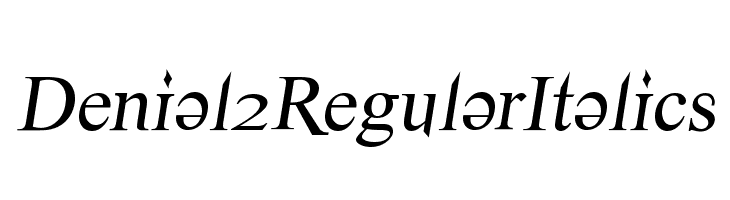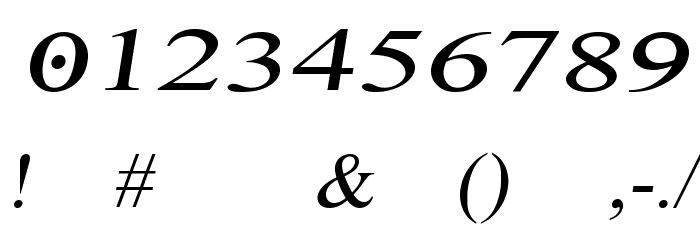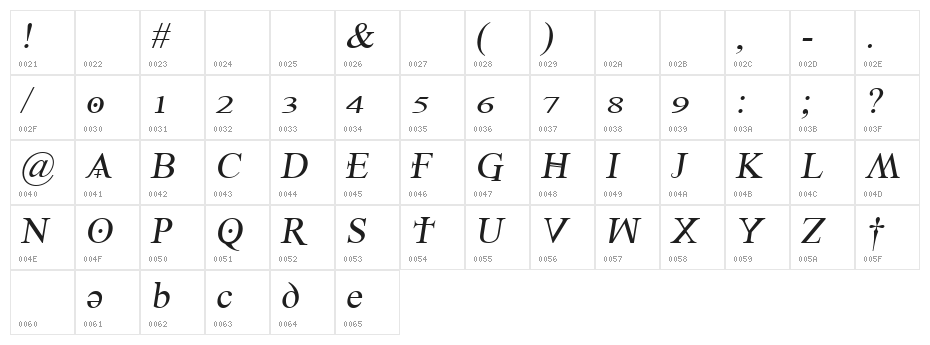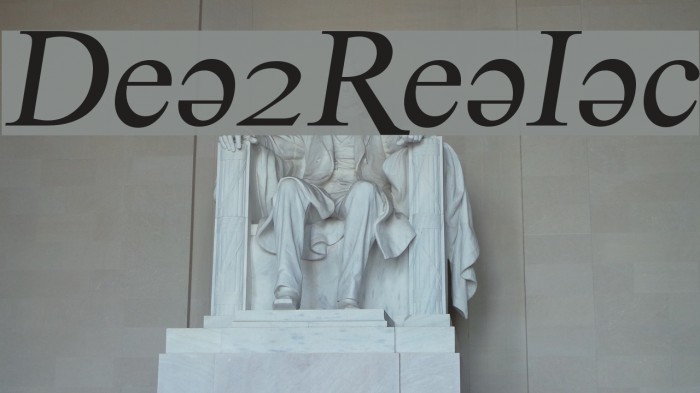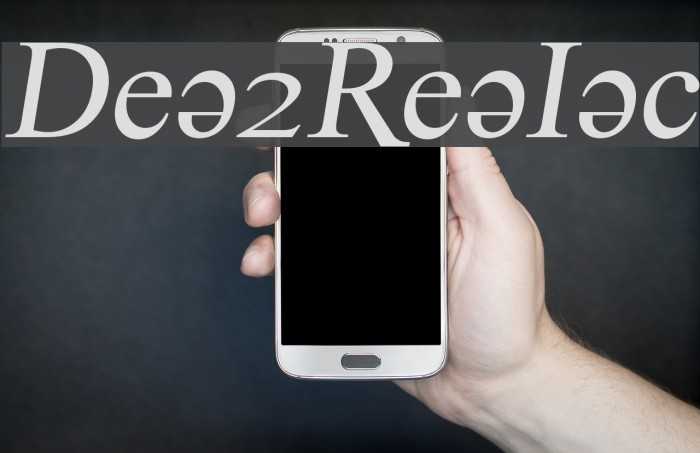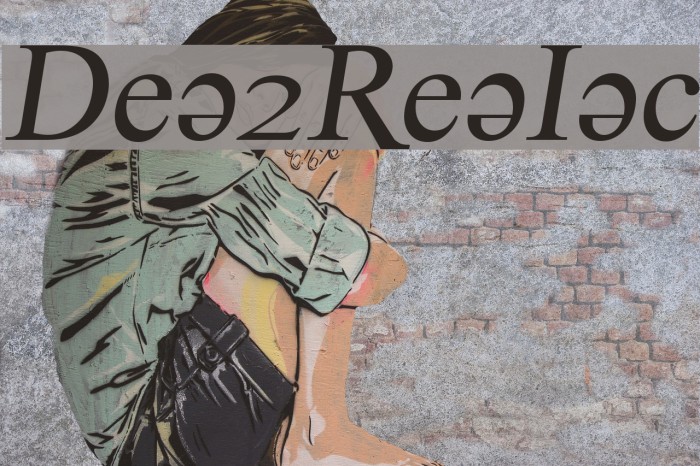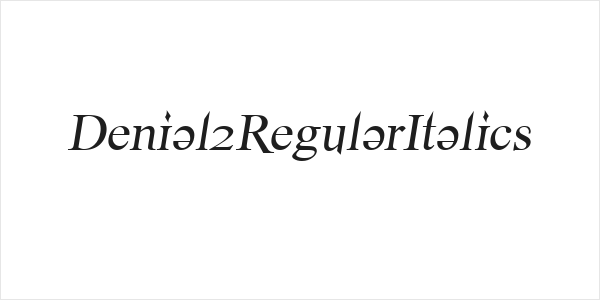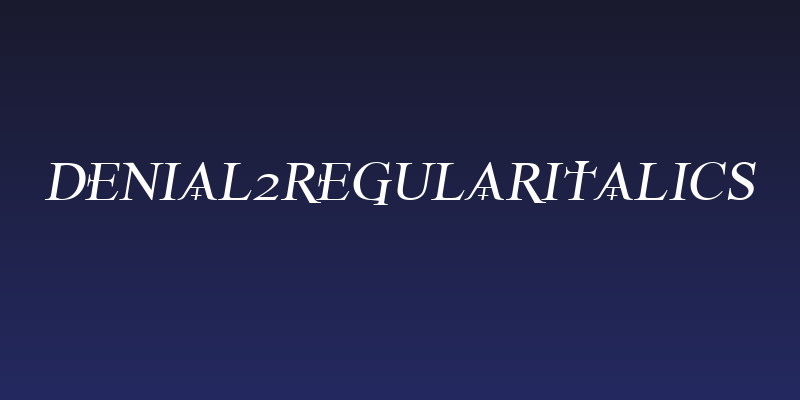
This font exhibits a classic serif style with a distinct italic slant, giving it an elegant and sophisticated appearance. The characters feature sharp, angular serifs and a moderate contrast between thick and thin strokes, enhancing its readability while maintaining a stylish flair. The uppercase letters are bold and commanding, while the lowercase letters maintain a graceful flow. The numerals are well-proportioned, fitting seamlessly with the overall design. Special characters are crafted with the same attention to detail, ensuring consistency across all glyphs. This font's unique characteristics make it suitable for a variety of design applications.
Overall StyleClassic
Use CaseHeadlines, Body text, Logos
Proposed ProjectsIdeal for use in editorial design, luxury branding, formal invitations, and high-end product packaging.